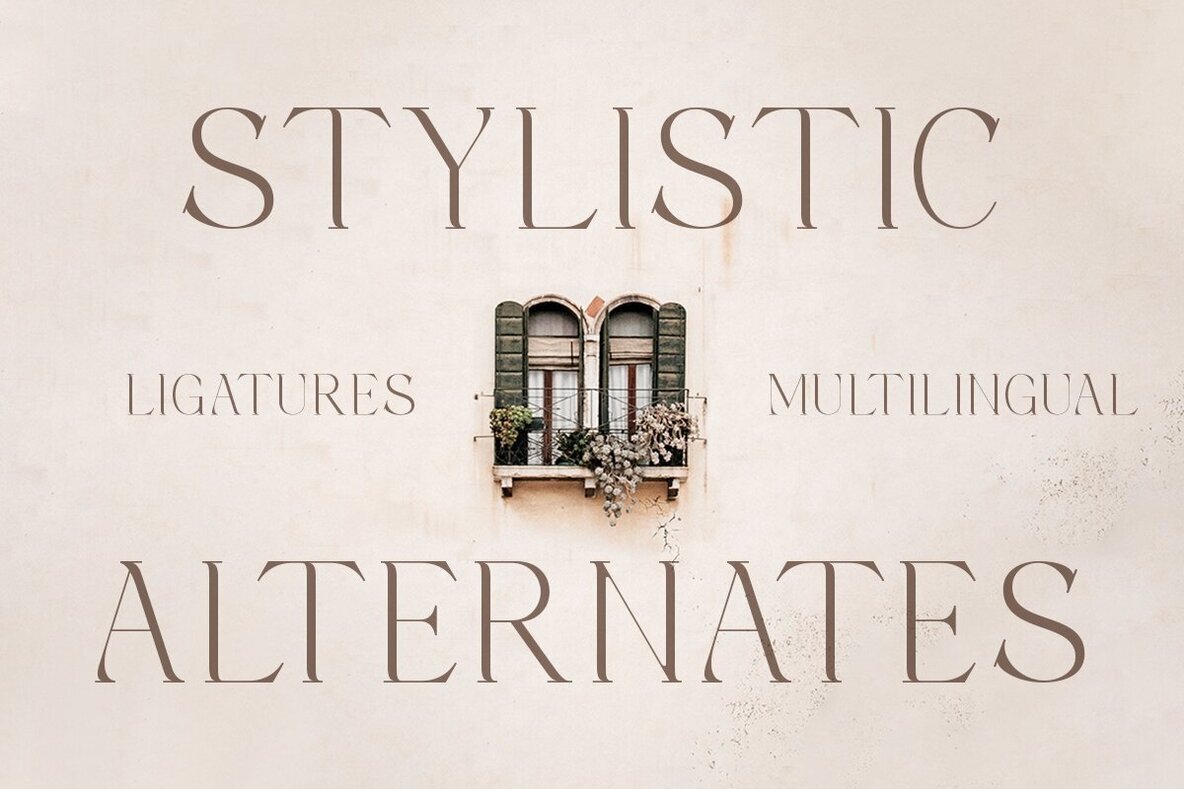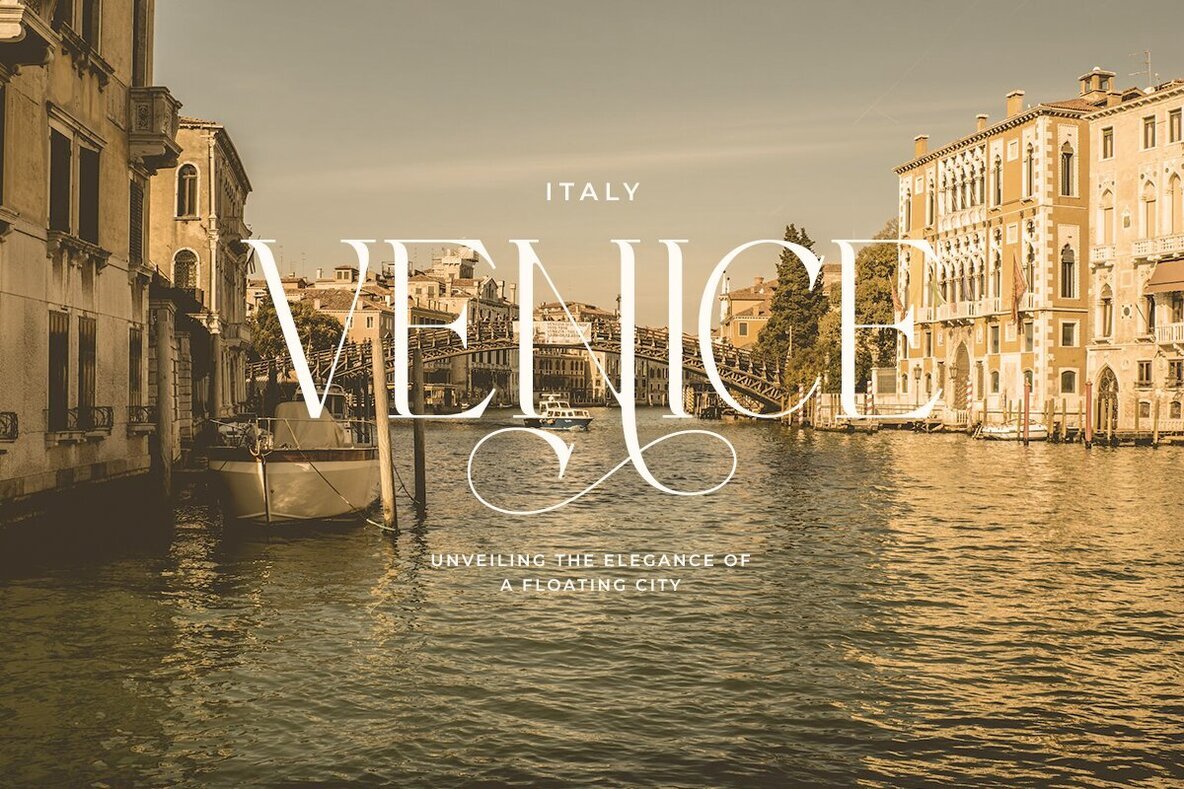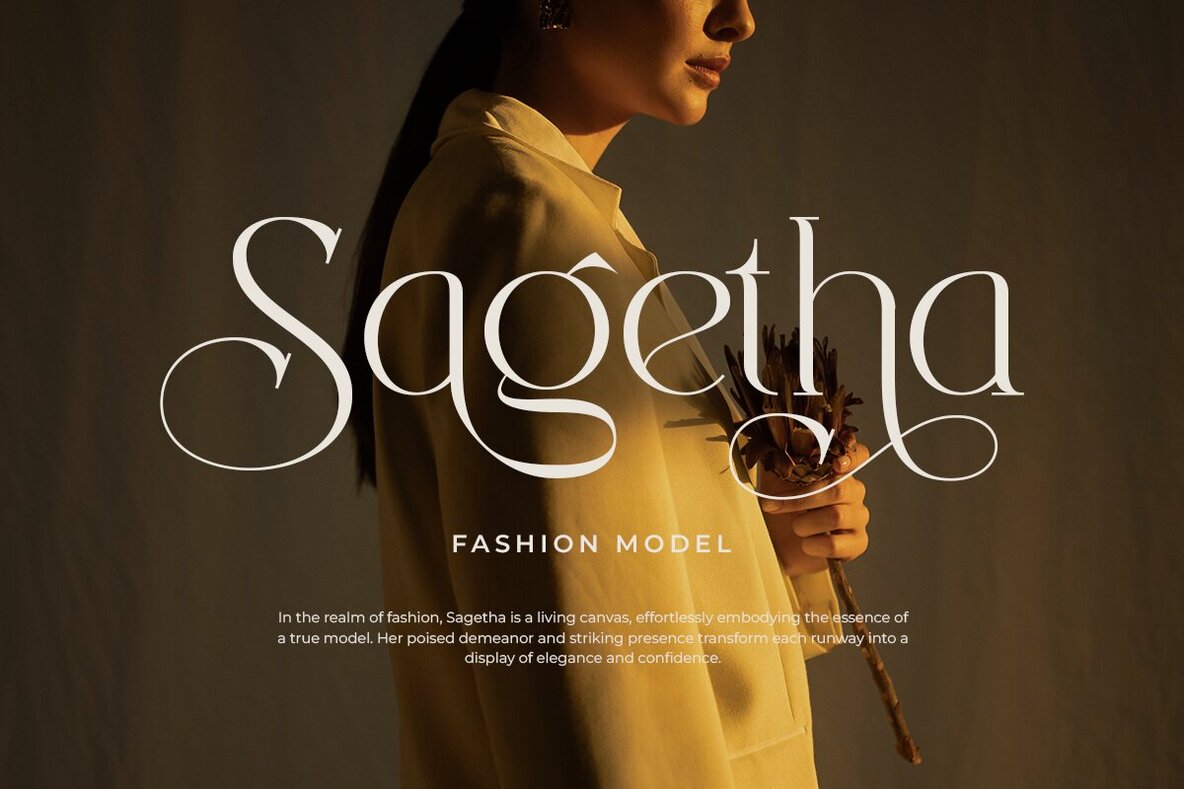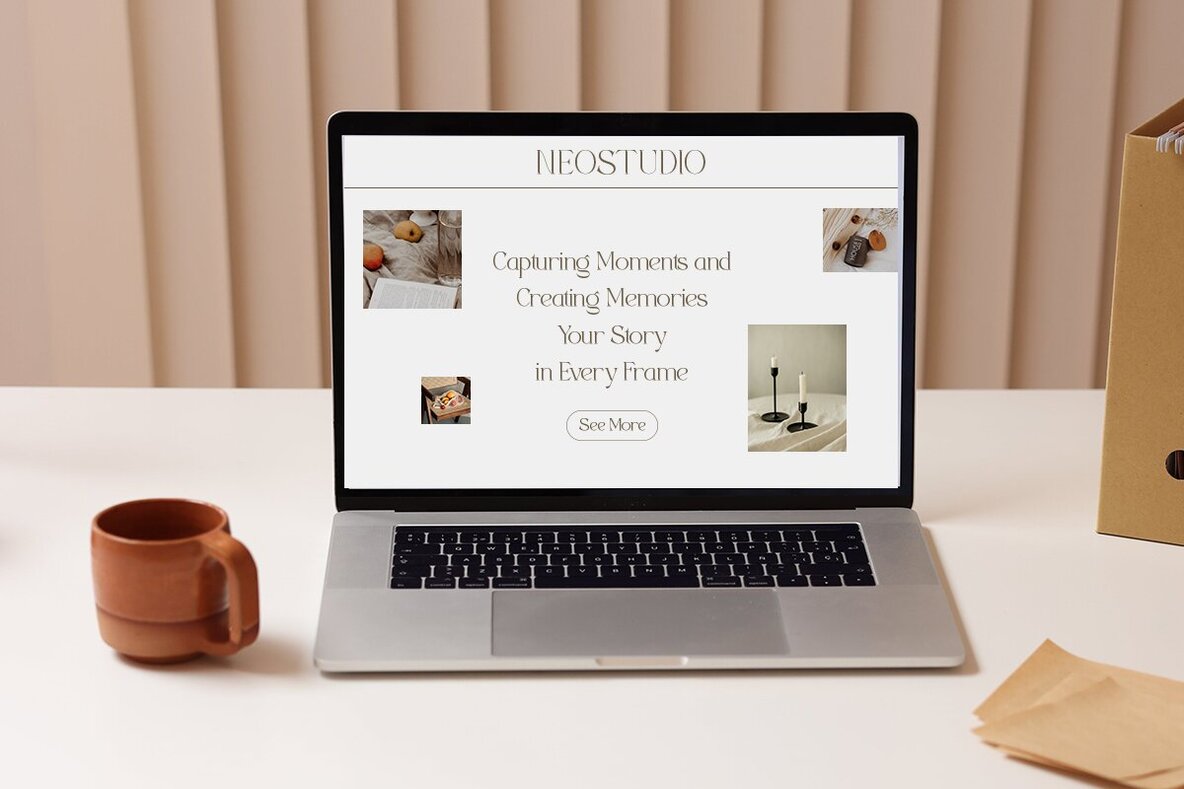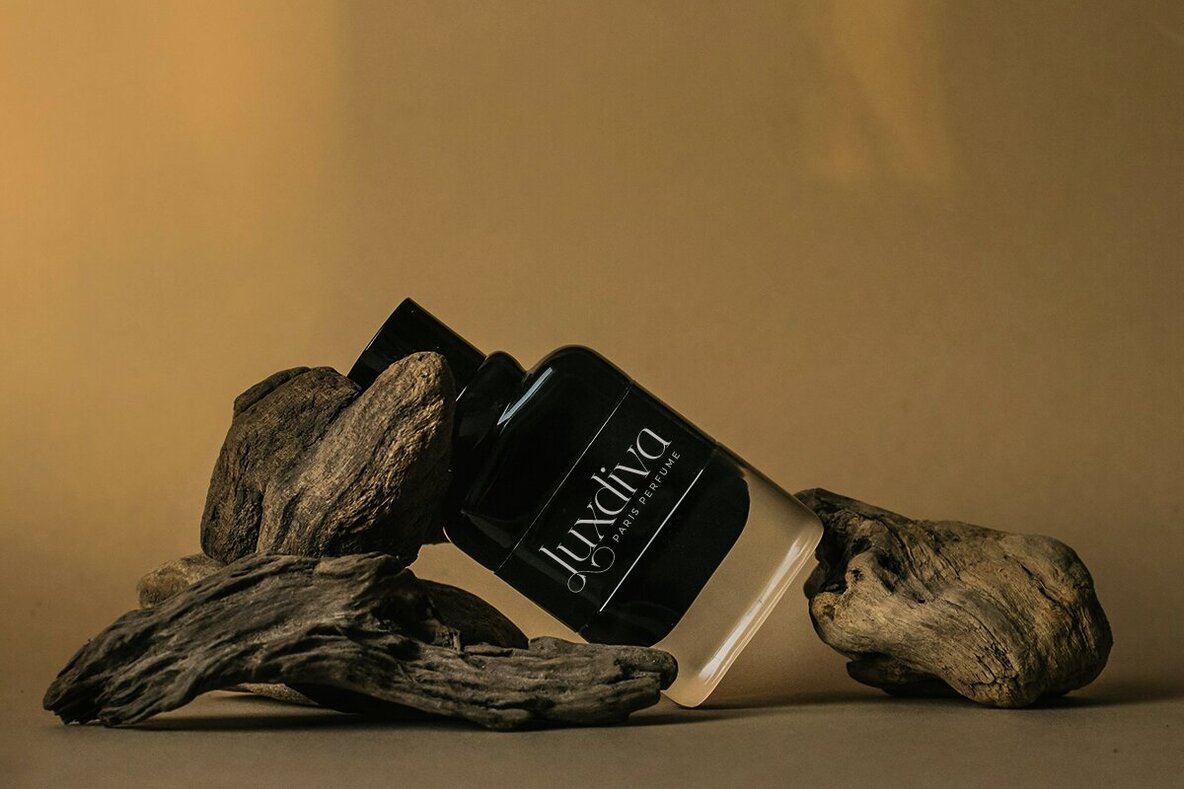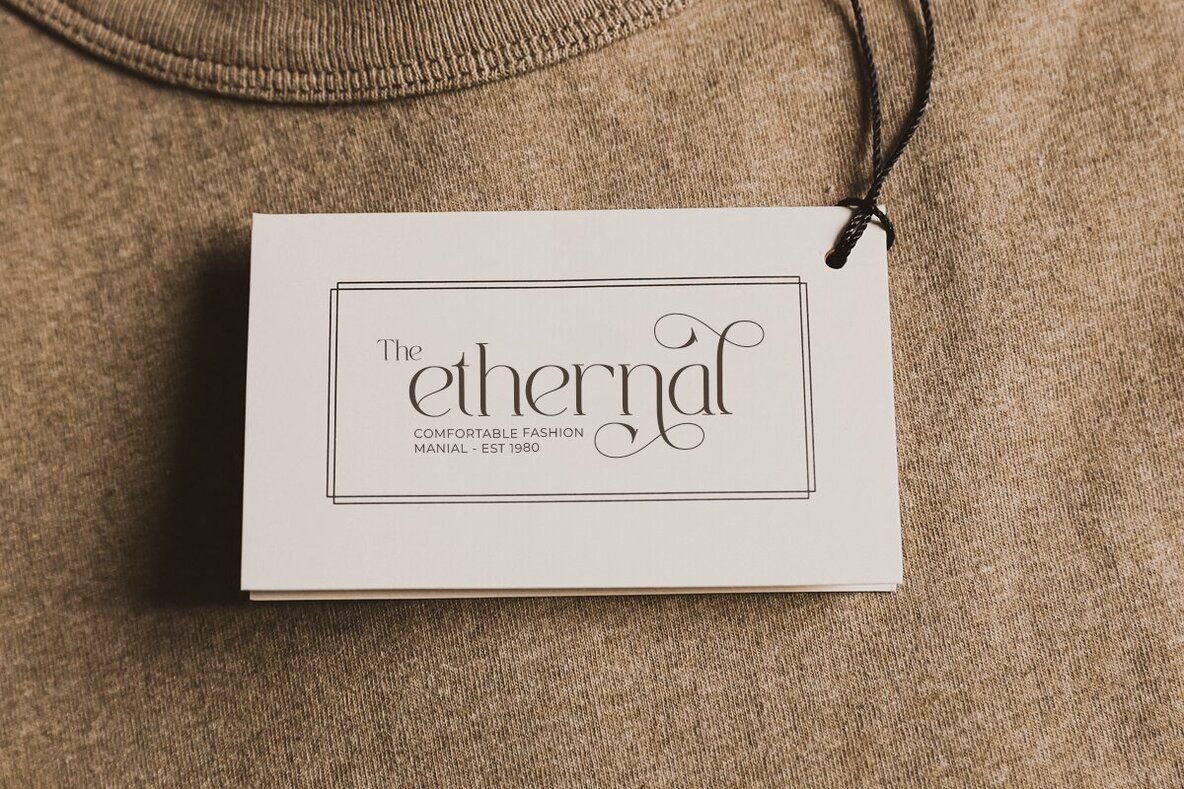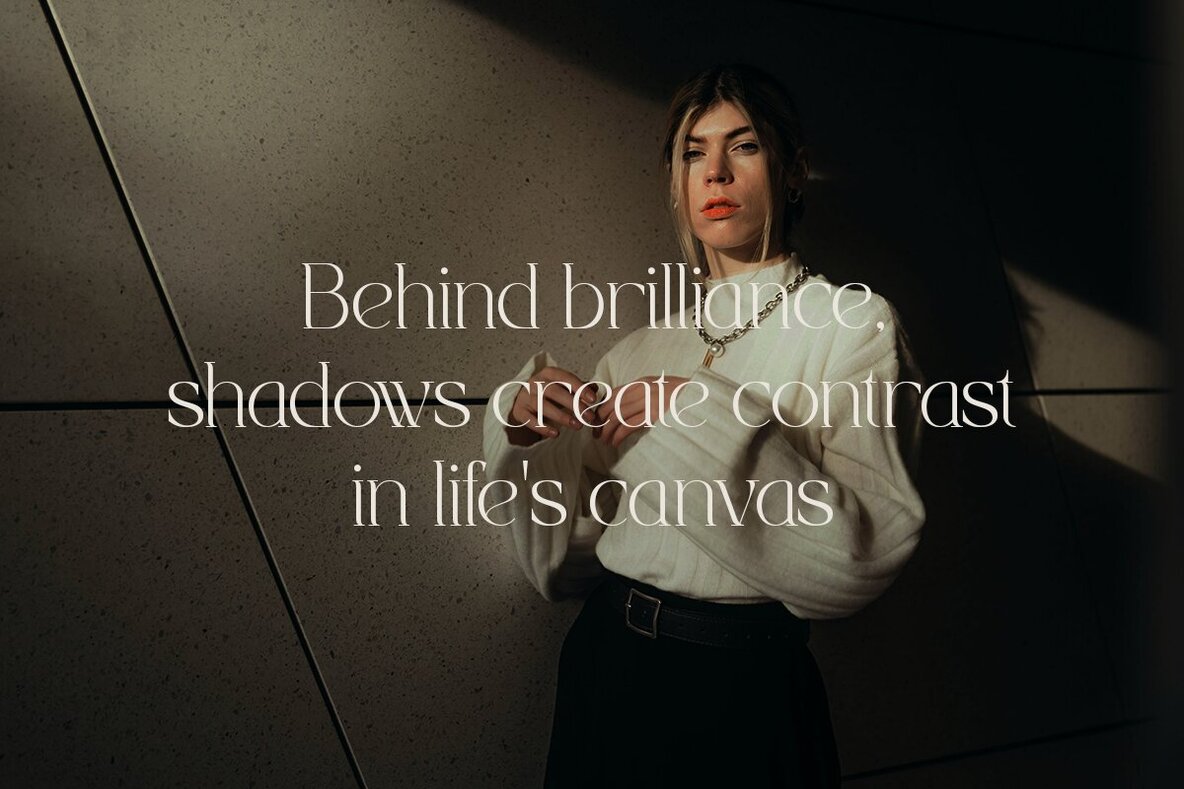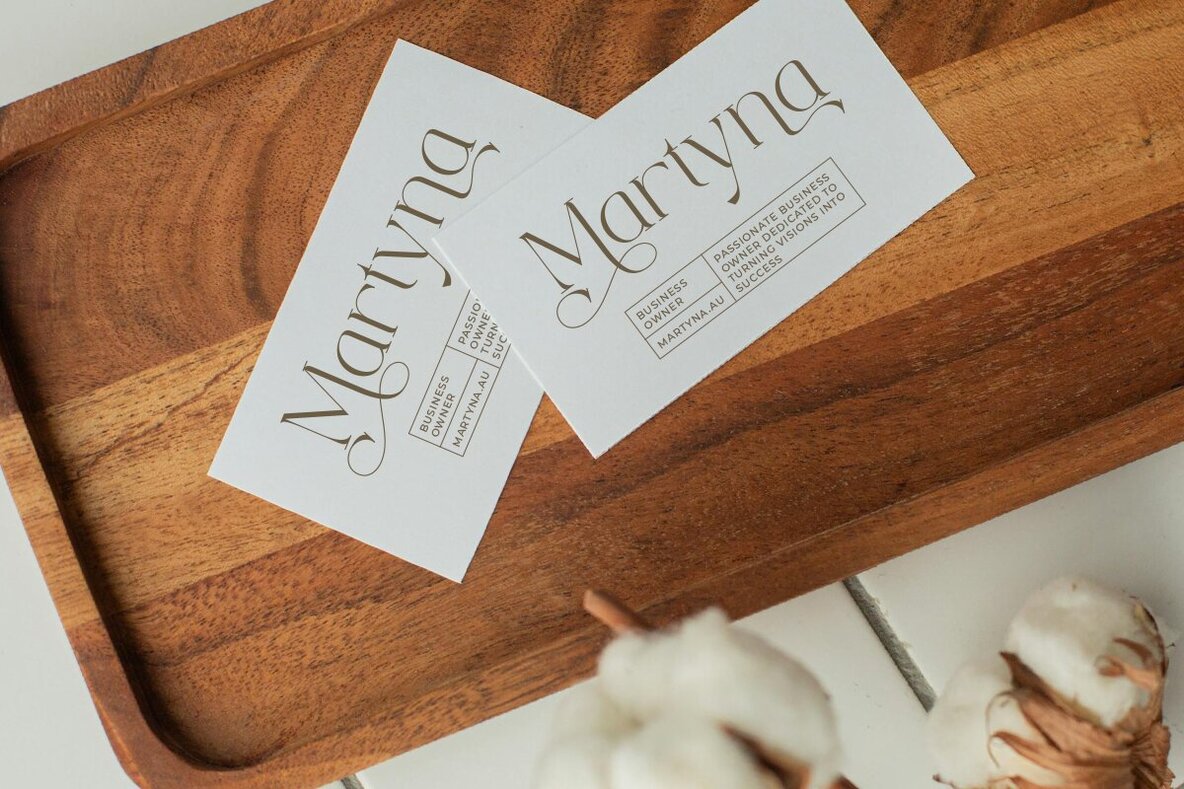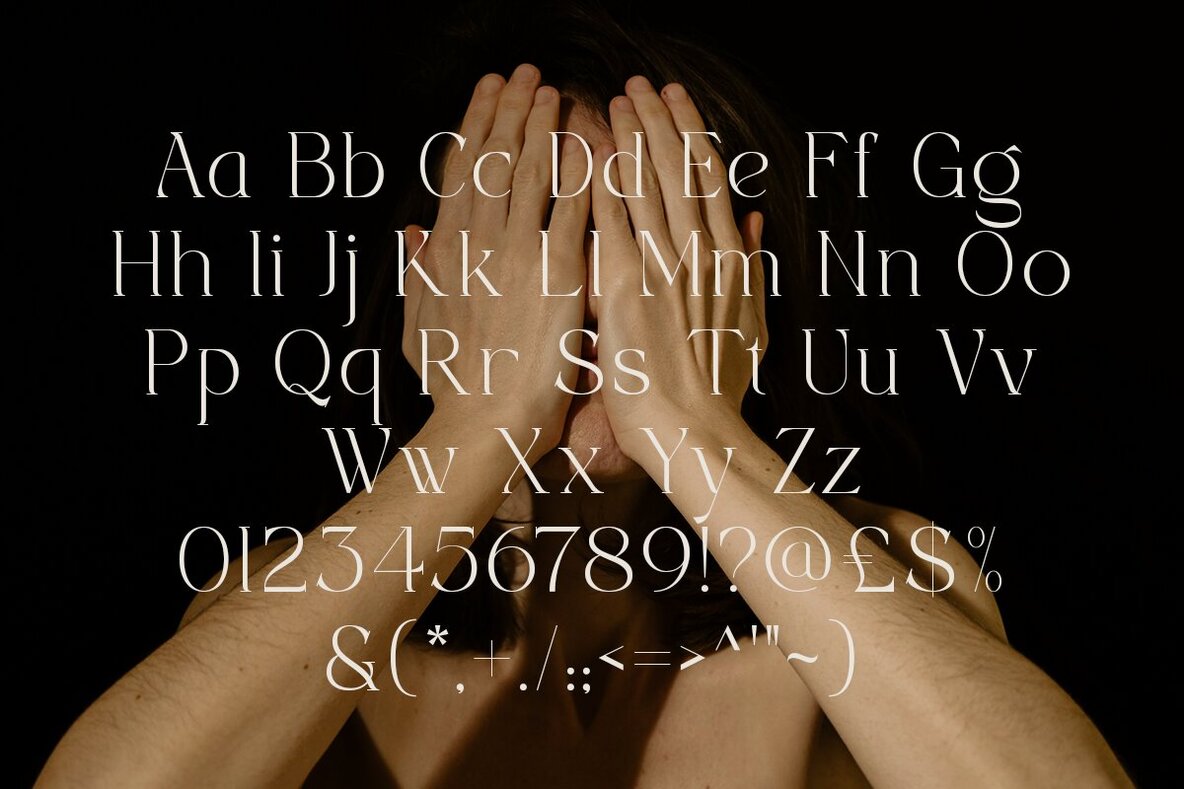
Relisha Font
Relisha Regular
Relisha is a modern elegant serif typeface that features unique alternates and multilingual support, complemented by perfect kerning. This typeface is ideal for creating elegant and luxurious logos, classy editorial designs, women's magazines, fashion brands, cosmetic branding, modern advertising designs, invitation cards, art quotes, home decorations, book covers, special events, tote bags, T-shirts, and much more. If you encounter any issues or have feedback while using this product, please reach out. We appreciate your insights to help us improve our offerings. Thank you and have a wonderful day.Relisha: A Modern Elegant Serif Typeface
Relisha Features